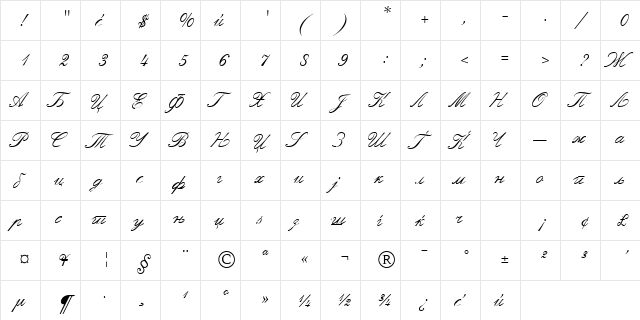
Macedonian Handwriting Normal-Italic
Design Context for Macedonian Handwriting Typeface
Macedonian Handwriting brings a calligraphic fluidity to the page — its connecting strokes and expressive curves give it an unmistakably human quality.
Font Pairing: Combine Macedonian Handwriting with a simple geometric sans for maximum contrast — the tension between flowing curves and clean structure is a classic typographic pairing.
Pro Tip: Pair Macedonian Handwriting with a clean sans-serif for supporting text. The contrast between fluid script and geometric structure creates an elegant typographic hierarchy.